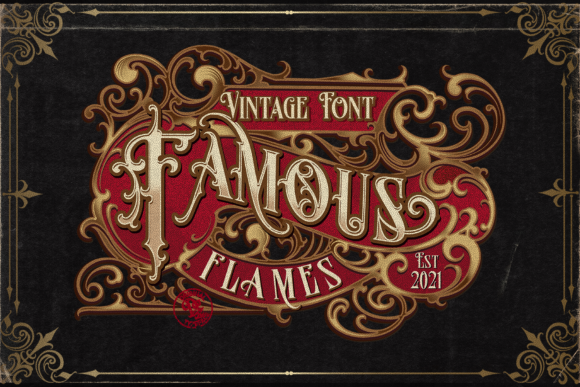
Introducing Famous Flames Font, the ultimate choice for those seeking the best font for tattoo logos. Crafted by the talented Dansdesign, this captivating blackletter font is sure to elevate your designs to new heights.
With its distinctive and stylish appearance, Famous Flames will leave a lasting impression on your audience. Its timeless appeal makes it perfect for creating stunning logos that exude strength, power, and sophistication. Whether you're a tattoo artist, a graphic designer, or a business owner looking to make a bold statement, this font is a must-have in your collection.
Imagine the impact your brand will have with Famous Flames gracing your logo. Its intricate and mesmerizing strokes will captivate your audience, leaving them in awe of your creativity. This font is not just a tool, but a work of art that speaks volumes about your brand's identity.
But the versatility of Famous Flames doesn't stop there. Use it to add a touch of elegance and edginess to your quotes, invitations, and business cards. Let your creativity run wild as you explore the endless possibilities this font offers. From presentations to social media graphics, Famous Flames will effortlessly elevate your designs and set them apart from the crowd.
What sets Famous Flames apart from other blackletter fonts is its ability to evoke emotions. Its bold and powerful aesthetic appeals to the rebellious spirit within all of us. It symbolizes strength, passion, and a desire to stand out from the ordinary. By using Famous Flames, you're not just creating designs, you're creating an experience that resonates with your audience on a deeper level.